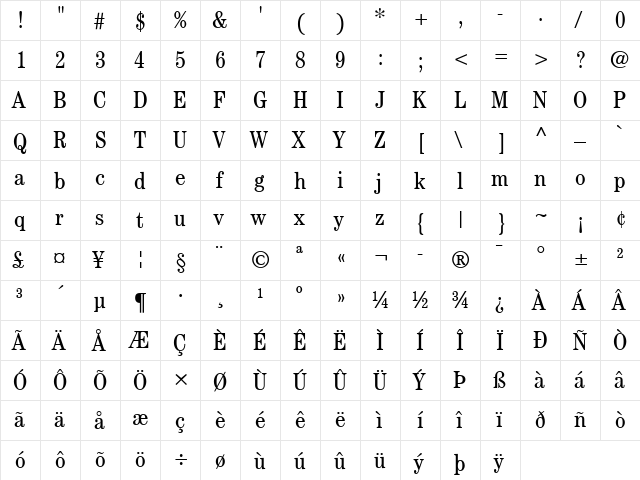
ITCCentury LT BookCond Regular
Design Context for ITCCentury LT BookCond Typeface
ITCCentury LT BookCond is a composed and adaptable typeface that performs quietly and consistently across a wide range of design contexts. Its slender proportions lend an understated elegance to any composition. The condensed width makes it efficient for tight spaces without sacrificing legibility.